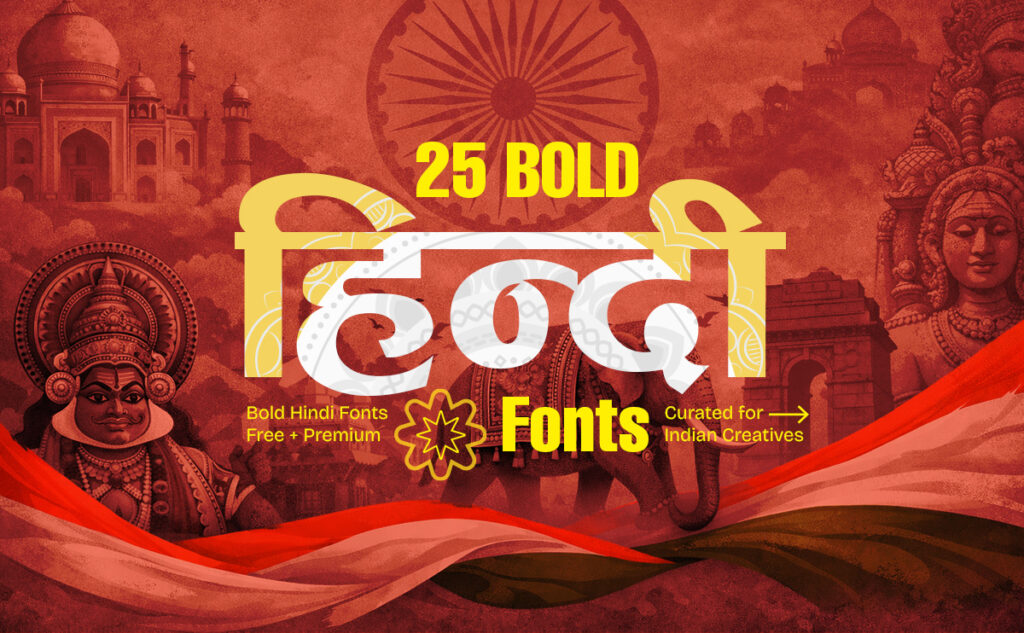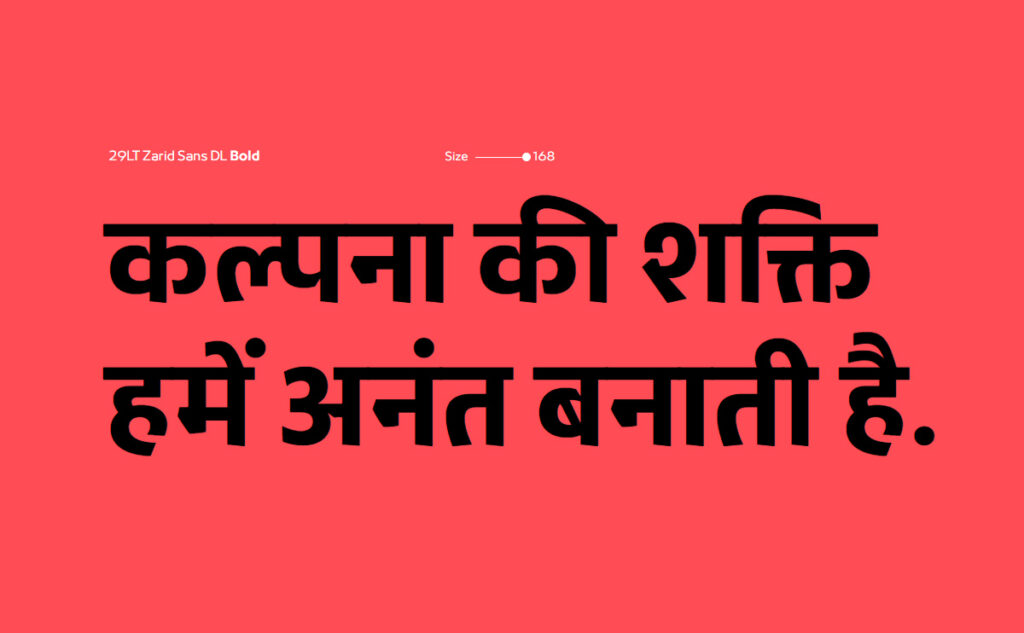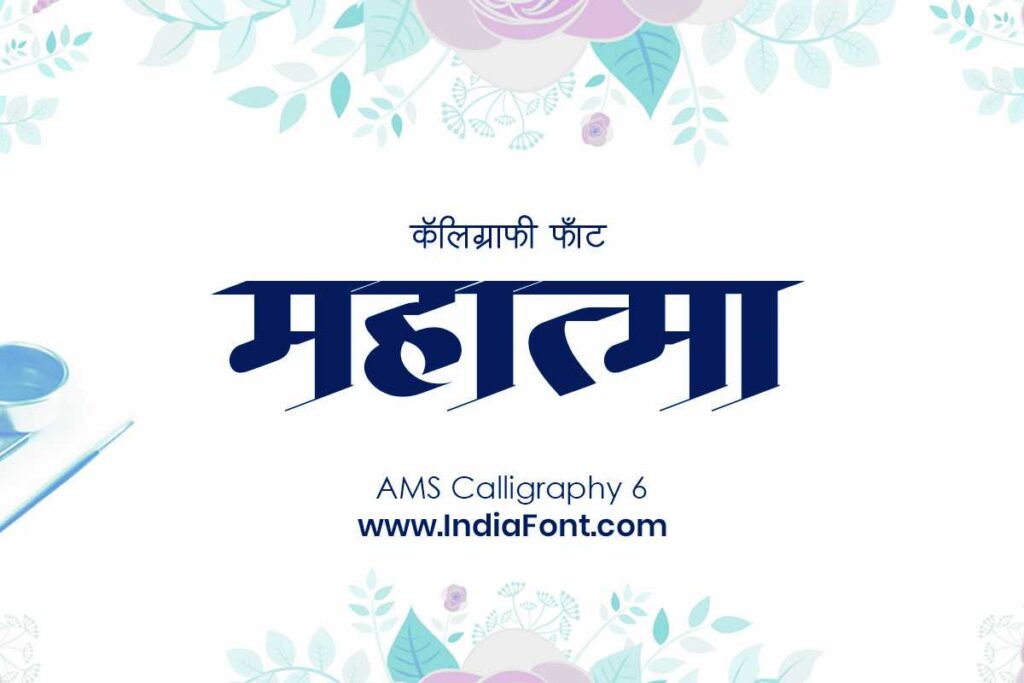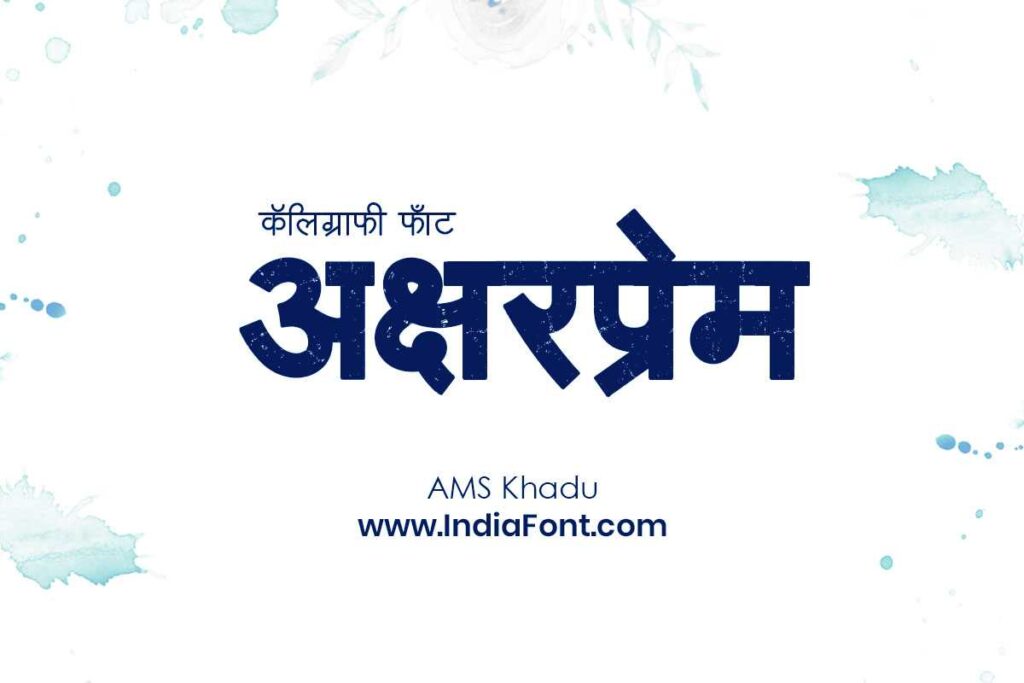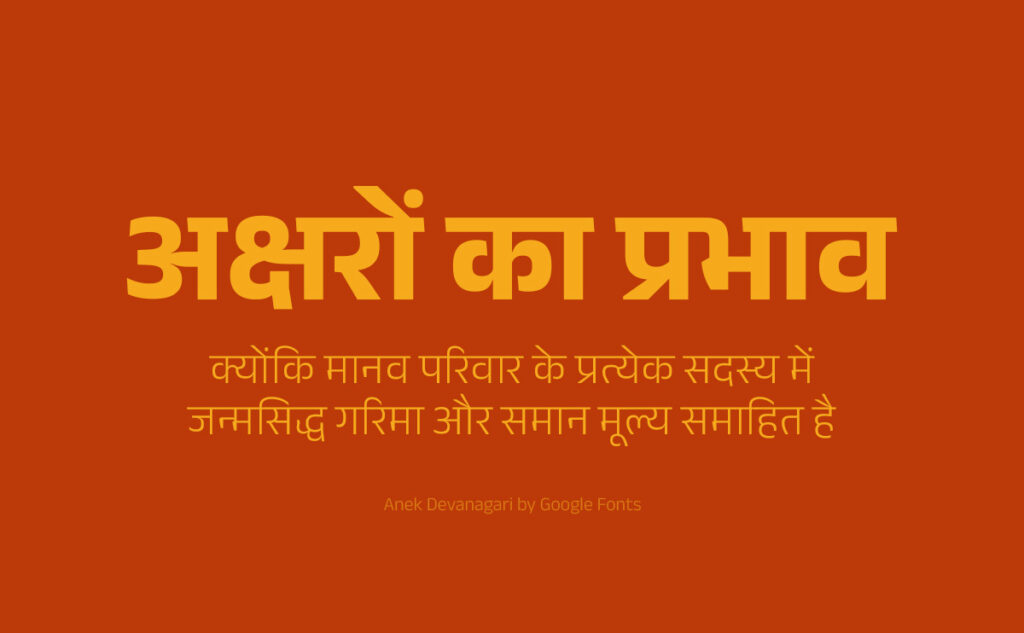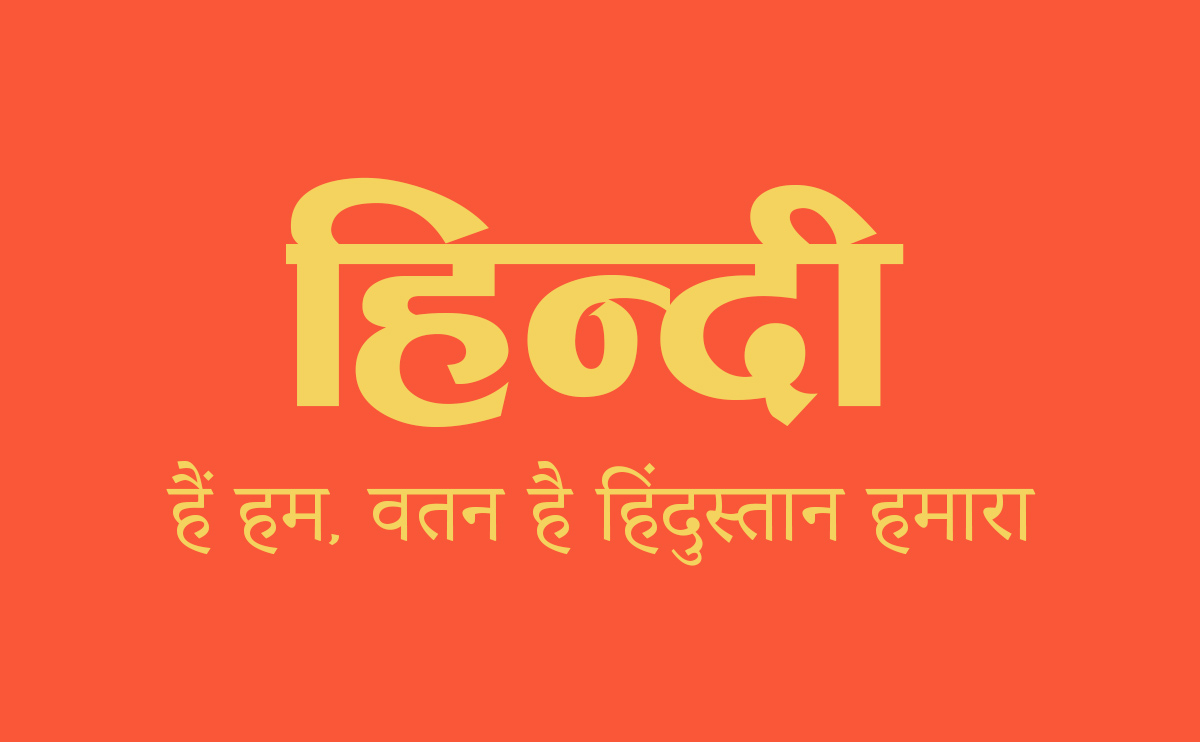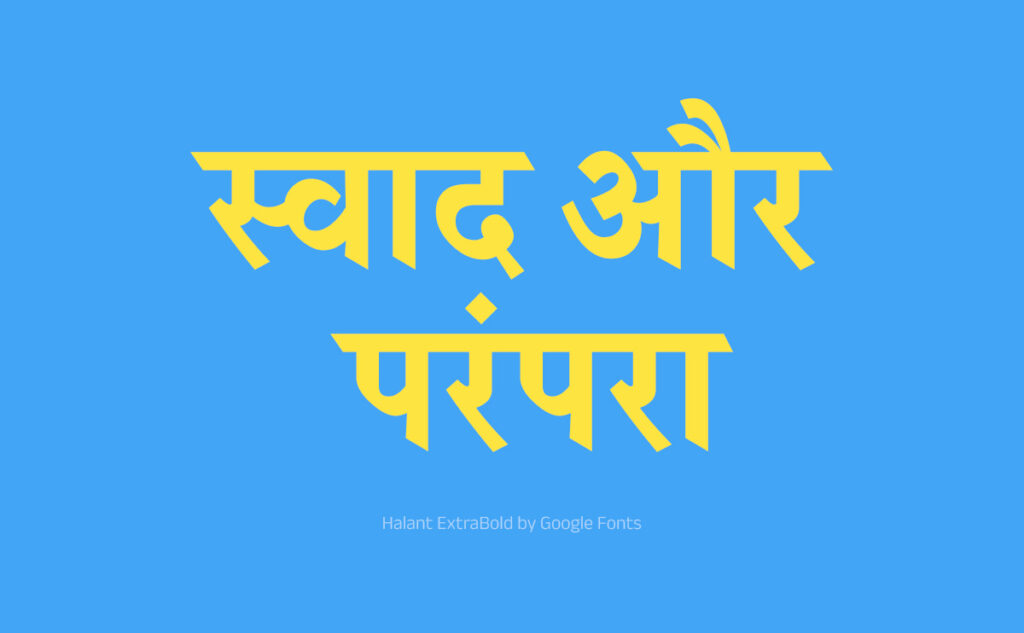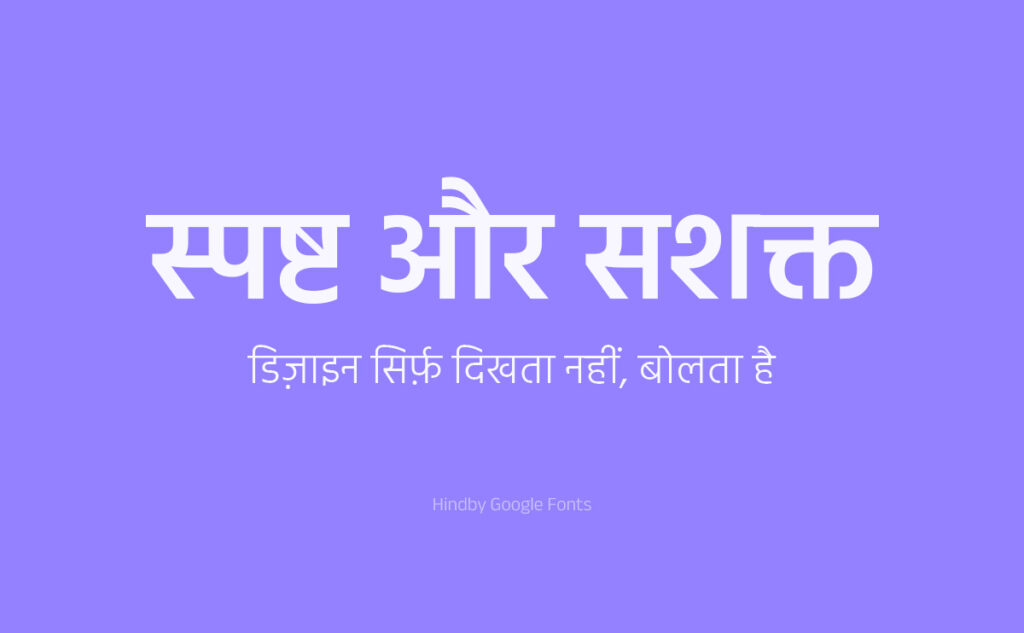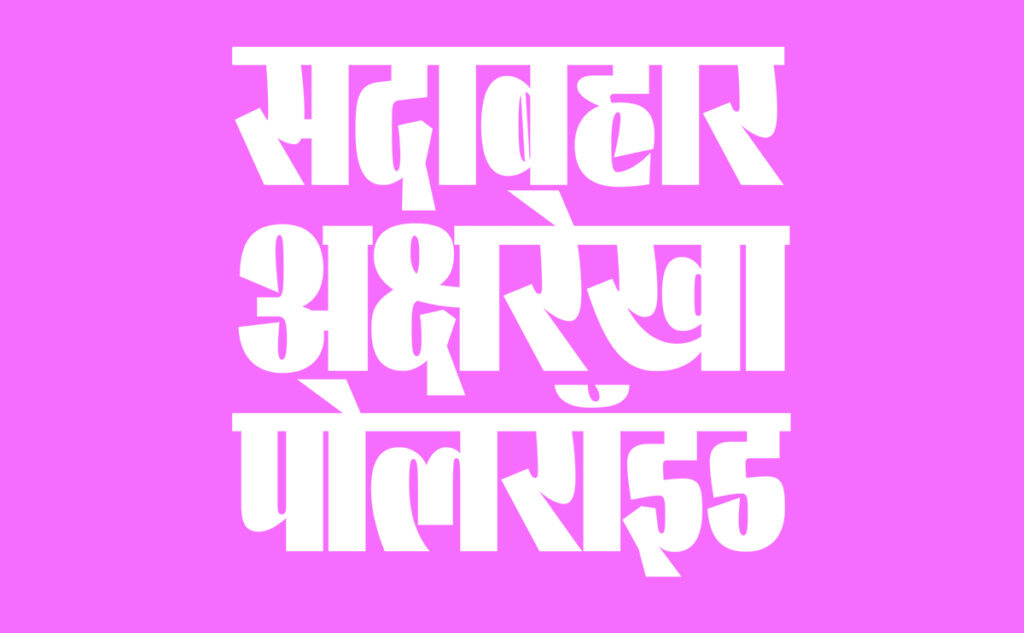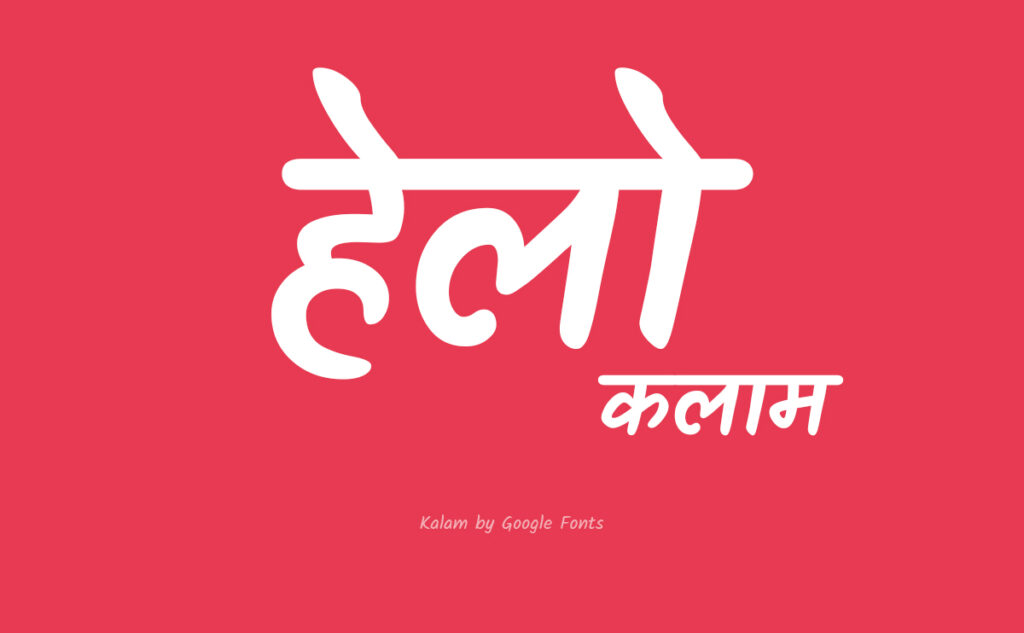
25 Bold Hindi Fonts
25 Bold Hindi Fonts are one of the most essential tools for Indian designers working on posters, banners, thumbnails, brand identities, and editorial layouts.
Unlike English typography, Devanagari fonts require a careful balance of stroke weight, spacing, readability, and cultural tone. A bold Hindi font is not just about thickness—it is about how clearly the characters communicate at large sizes while still feeling visually balanced.
In this curated guide, we explore 25 Bold Hindi Fonts — a mix of free and premium Devanagari typefaces — specifically selected for headings and display use. These fonts have been chosen based on real-world design scenarios, making this list practical for both digital and print projects.
The Importance of Bold Hindi Fonts in Design
A strong heading font defines the first impression of any design. The right bold Hindi font can improve readability, strengthen visual hierarchy, and instantly communicate the personality of a brand or message. Whether you are designing for social media, print, or web, investing time in choosing the right Devanagari typeface can dramatically elevate the final output.
1. Noto Sans Devanagari – Google
A highly legible and modern sans-serif typeface from Google’s global Noto project.
Best for: UI headings, editorial titles, digital platforms.
Noto Sans Devanagari feels neutral, professional, and extremely reliable across devices.
2. Anek Devanagari by Google / Ek Type
A contemporary variable font family with multiple weights and widths.
Best for: Brand systems, design systems, tech and startups.
Anek gives designers flexibility while maintaining strong Devanagari structure.
3. Hind by Indian Type Foundry (Google)
One of the most widely used modern Hindi fonts.
Best for: Corporate design, dashboards, branding, long headlines.
Hind strikes a great balance between personality and readability.
4. Khand by Indian Type Foundry (Google)
A wide, bold, and assertive Devanagari typeface.
Best for: Hoardings, posters, announcements.
Khand has strong horizontal presence and works beautifully in large sizes.
5. DIN Next Devanagari Heavy by Monotype
A Devanagari extension of the classic DIN engineering type system.
Best for: Industrial brands, signage, professional interfaces.
DIN Next feels technical, structured, and authoritative.
6. 29LT Zarid Sans DL Bold by 29LT
A bold contemporary Arabic–Devanagari hybrid style.
Best for: Luxury brands, experimental typography, editorial covers.
Zarid Sans has a premium, international design language.
7. Interchange Display by Future Fonts
A modern experimental display typeface.
Best for: Creative posters, magazine covers, concept designs.
This font feels expressive and design-forward.
8. Lini – Mota Italic (Kimya Gandhi)
A bold, playful display font with strong character.
Best for: Cultural projects, creative branding, youth design.
Lini feels handcrafted yet structured.
9. Ouma Devanagari
Designed by Gunnar Vilhjálmsson and Hitesh Malaviya. From Universal Thirst.
Designed by Gunnar Vilhjálmsson and Hitesh Malaviya.
Best for: Contemporary branding, editorial typography.
Ouma has a stylish, international serif personality.
10. Peridot Devanagari
Designed by Kostas Bartsokas and Pria Ravichandran. From Foundry5.
A premium serif Devanagari typeface.
Best for: Luxury brands, magazines, book covers.
Peridot feels refined and highly editorial.
11. Skolar Devanagari
Designed by Vaibhav Singh. From Rosetta Type Foundry.
A professional-grade serif family.
Best for: Publishing, newspapers, long-form titles.
Skolar is known for its excellent typographic engineering.
12. Chikki Devanagari by Adobe fonts-Mota Italic
Designed by Kimya Gandhi
A bold and friendly display font.
Best for: Children’s content, playful brands, packaging.
Chikki brings warmth and personality.
13. Shree Dev 2453 by MyFonts
A classic legacy-style Devanagari font.
Best for: Traditional print, cultural posters.
Feels old-school but still powerful in bold contexts.
14. Objektiv Devanagari from Dalton Maag
A modern geometric sans-serif.
Best for: Startups, digital products, branding.
Objektiv is clean, minimal, and highly contemporary.
15. Munshi Devanagari by Indian Type Foundry
Inspired by traditional calligraphy.
Best for: Editorial design, heritage brands.
Munshi blends classical roots with modern proportions.
16. Koyla Devanagari by Indian Type Foundry
For posters and banners, designers should look for display-style bold fonts with strong visual presence. Fonts like Khand, Brahmos, Koyla, Teko, Ganesh, and AMS Khadu work especially well for large-format designs.
How do I choose the right bold Hindi font for my project?
Start by understanding the tone of your project — modern, traditional, playful, or formal. Then test a few bold Hindi fonts in real layouts. The right font should feel legible, balanced, and culturally appropriate for your audience.